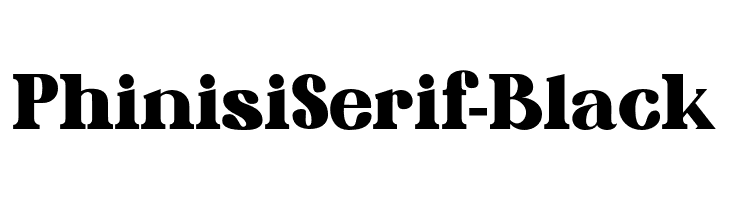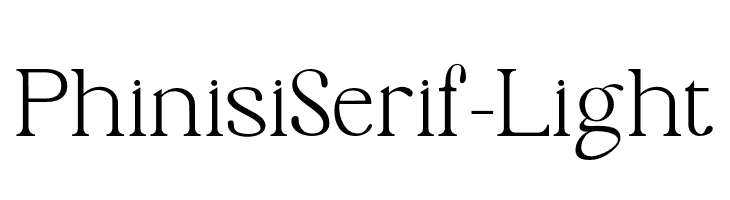
• PhinisiSerif-Bold
A bold serif font with strong strokes and elegant serifs, perfect for impactful designs.
• Phinisi Serif Medium
A classic serif font with medium weight, offering elegance and readability.
• PhinisiSerif-Light
A classic serif font with elegant, elongated serifs and refined letterforms.
• Phinisi Serif Light
A refined and elegant serif font with a light weight and classic appeal.
• Phinisi Serif Regular
A classic serif font with elegant and refined letterforms.
• PhinisiSerif-Black
A bold, serif font with strong vertical emphasis and flared serifs.
• Phinisi Serif Bold
A bold serif font with strong, angular serifs and a classic yet modern appeal.
• PhinisiSerif-ExtraBold
A bold serif font with strong vertical lines and pronounced serifs.
• Phinisi Serif Extra Bold
A bold serif font with high contrast and pronounced serifs, ideal for impactful designs.